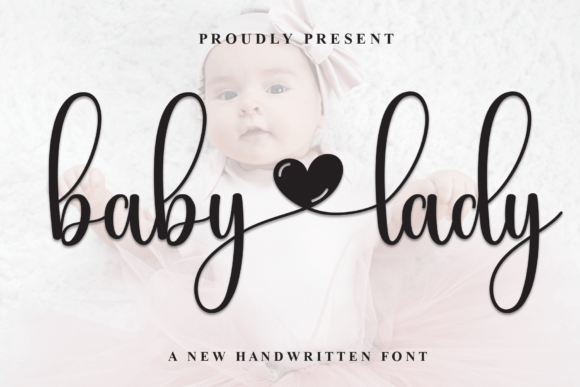
Discover the Delicate Charm of Baby Lady Font
Have you ever found yourself scribbling down a design idea in a notebook, only to realize that the messy handwriting has become the most captivating part of the concept? That’s exactly what happens when you fall in love with the Baby Lady Font – a charming handwritten font that captures the essence of delicate, graceful handwriting.
Whether you’re a seasoned designer or just starting out, Baby Lady Font is the perfect addition to your toolkit. Its elegant and warm touch can instantly elevate your designs, making them feel more personal and inviting. With Baby Lady Font, you can add a sophisticated yet approachable feel to your projects, from wedding invitations to children’s book illustrations.
Baby Lady Font Key Features
- Font Family: Baby Lady, Baby Lady Italic, Baby Lady Bold, Baby Lady Bold Italic
- Unique Characteristics: Hand-drawn design with playful, cursive script; suitable for feminine and child-related projects
Baby Lady Font Review
Overall, I have mixed feelings about the Baby Lady Font. On one hand, it’s a unique and playful script font that could be perfect for certain design projects.
- ✨ The font’s whimsical nature makes it ideal for child-related designs, such as nursery decor, baby products, or kids’ clothing.
- ✨ The font is highly legible, even at smaller sizes, making it suitable for body text or smaller headings.
- ✨ The font’s high x-height and rounded edges give it a friendly, approachable feel that works well for casual designs.
- ⚠️ The font may be too playful or immature for more professional or formal designs.
- ⚠️ The font’s rounded edges and high x-height may make it difficult to read at very small sizes or in certain contexts.
- ⚠️ The font may not be suitable for designs that require a more sophisticated or elegant feel.
Overall, I think the Baby Lady Font is a fun and versatile font that can add a touch of personality to certain design projects. However, it’s not a good fit for every design style or project.
Tips for Getting the Most Out of Baby Lady Font
For best results, use Baby Lady Font in combination with pastel colors and whimsical graphics. Experiment with different font sizes and styles to create a playful and eye-catching design.
Baby Lady Font is perfect for:
- Baby shower invitations and decorations
- Children’s party invitations and banners
- Infant and toddler product labels and packaging
Alternatives to “Baby Lady Font” for Designers
Great Vibes is a beautiful, elegant script font that can be used for various design purposes, including wedding invitations, greeting cards, and other romantic designs. It has a more refined and sophisticated look compared to Baby Lady Font.
Comparison: Great Vibes Font has a more delicate and intricate design, making it suitable for formal and high-end designs, whereas Baby Lady Font is more playful and casual.
Carolyna Pro is a modern script font that is ideal for designers who want a sophisticated and elegant look without being too ornate. It is suitable for a wide range of designs, including branding, packaging, and editorial content.
Comparison: Carolyna Pro Font has a more streamlined and polished design compared to Baby Lady Font, making it a better choice for professional and corporate designs.
Canela Font
Canela is a beautiful, handwritten font that is perfect for designers who want a more personal and creative look. It is suitable for designs such as invitations, posters, and social media graphics.
Comparison: Canela Font has a more organic and whimsical design compared to Baby Lady Font, making it a better choice for designs that require a touch of personality and playfulness.
Juliette Font
Juliette is a stunning, elegant script font that is ideal for designers who want a sophisticated and refined look. It is suitable for a wide range of designs, including branding, packaging, and editorial content.